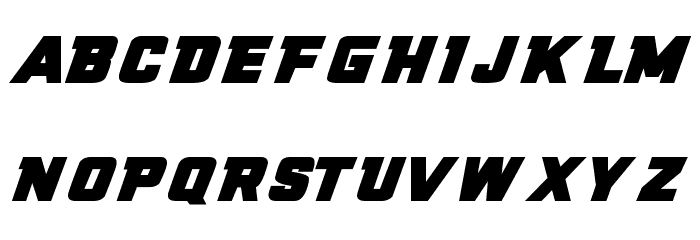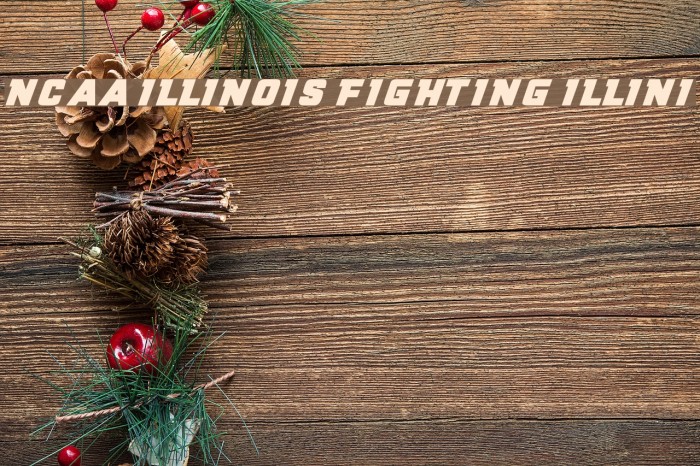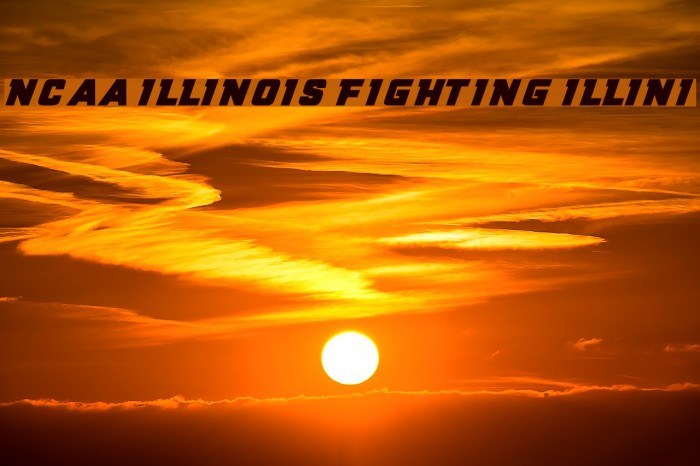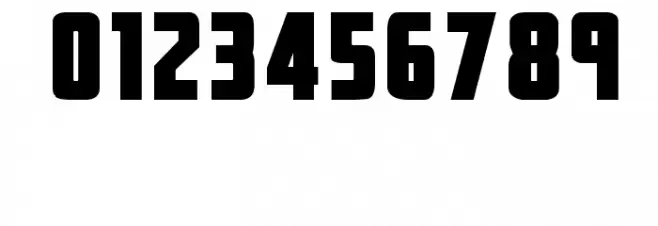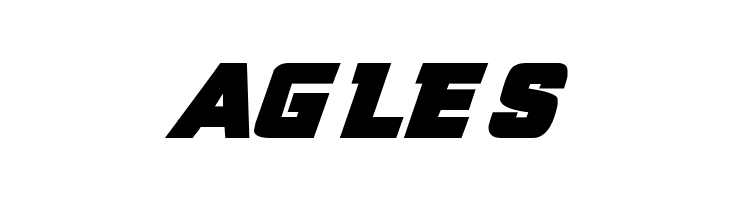
NCAA Illinois Fighting Illini Font
This font features a bold and dynamic style with a strong presence. The characters are slightly italicized, giving them a sense of movement and energy. The uppercase letters are particularly striking, with sharp angles and a solid structure that conveys strength and determination. The numbers are equally bold, maintaining the same robust design as the letters. This font is ideal for projects that require a commanding and assertive look, such as sports branding or team logos. The overall design is modern and impactful, making it suitable for various high-energy applications.
Bold, italicized font with a dynamic and modern style.
- Proposed Projects: Ideal for sports branding, team logos, and dynamic advertising campaigns.